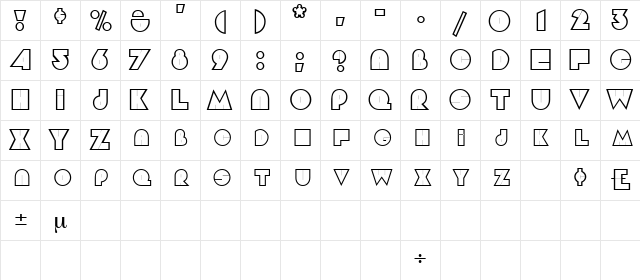
ArgotDisplayCapsSSK Regular
Design Context for ArgotDisplayCapsSSK Typeface
ArgotDisplayCapsSSK is built around its visual character rather than neutral utility — its distinctive forms are designed to make an impression at display sizes.
Font Pairing: Pair with a clean neutral sans-serif for body copy to let ArgotDisplayCapsSSK's character lead without overwhelming the composition.
Pro Tip: Treat ArgotDisplayCapsSSK as the centrepiece of your typographic hierarchy. One strong heading set in a decorative face can carry an entire layout.